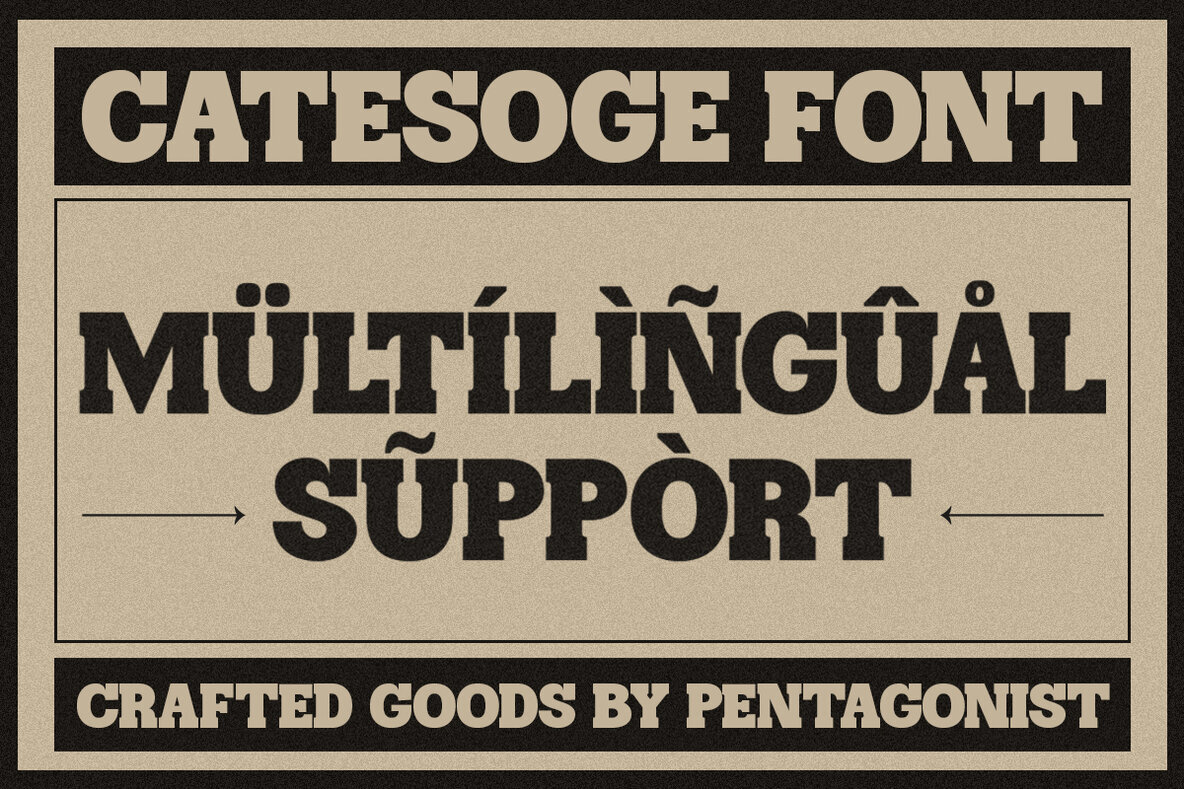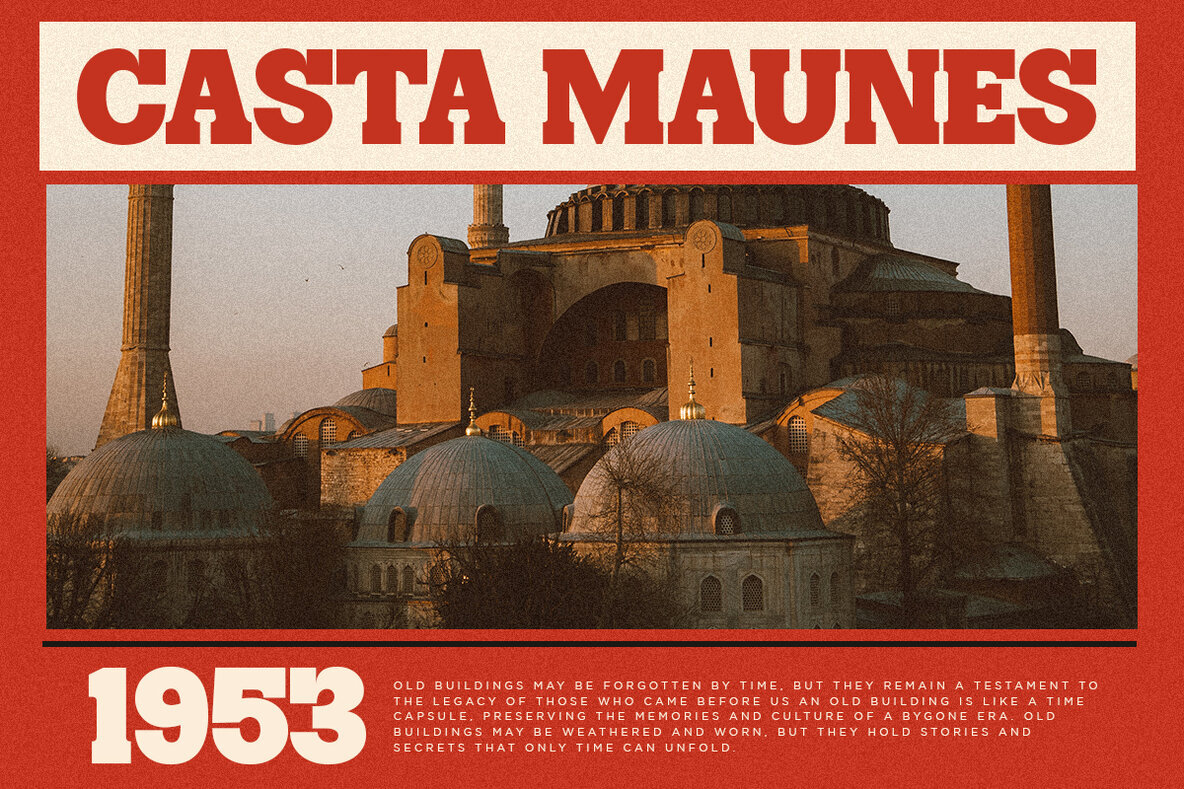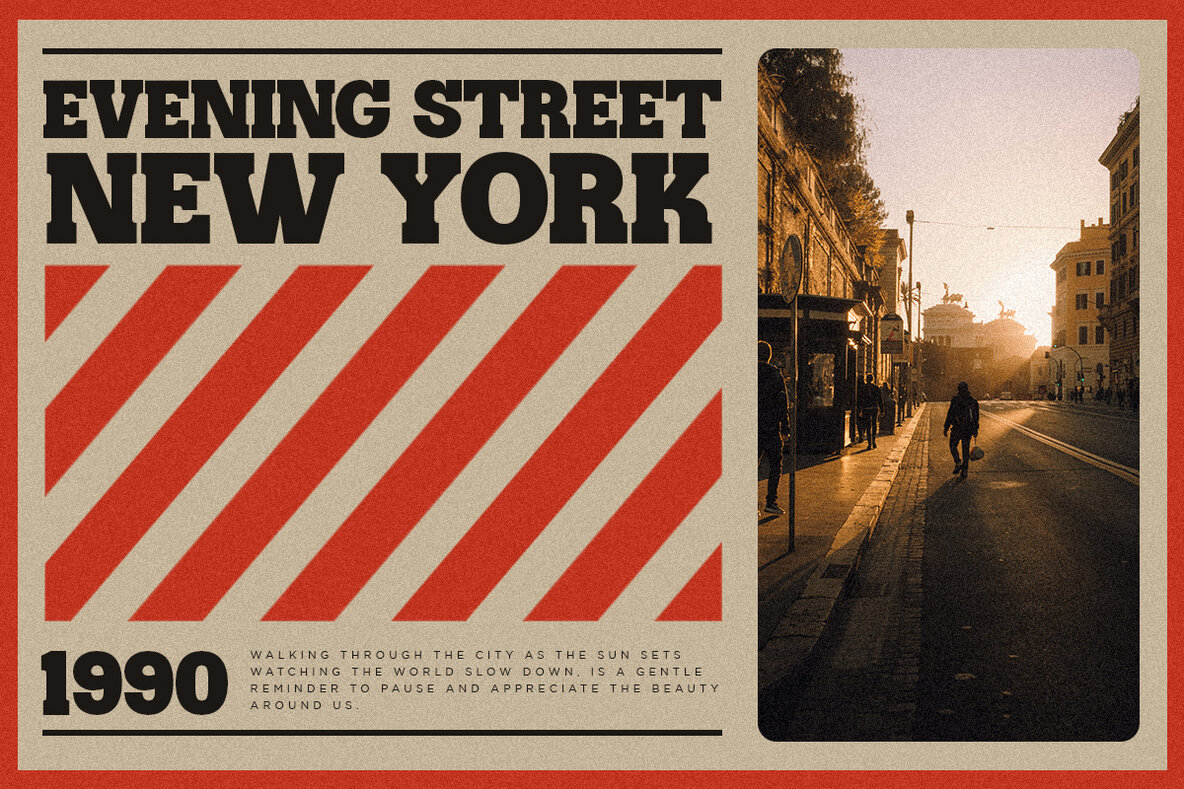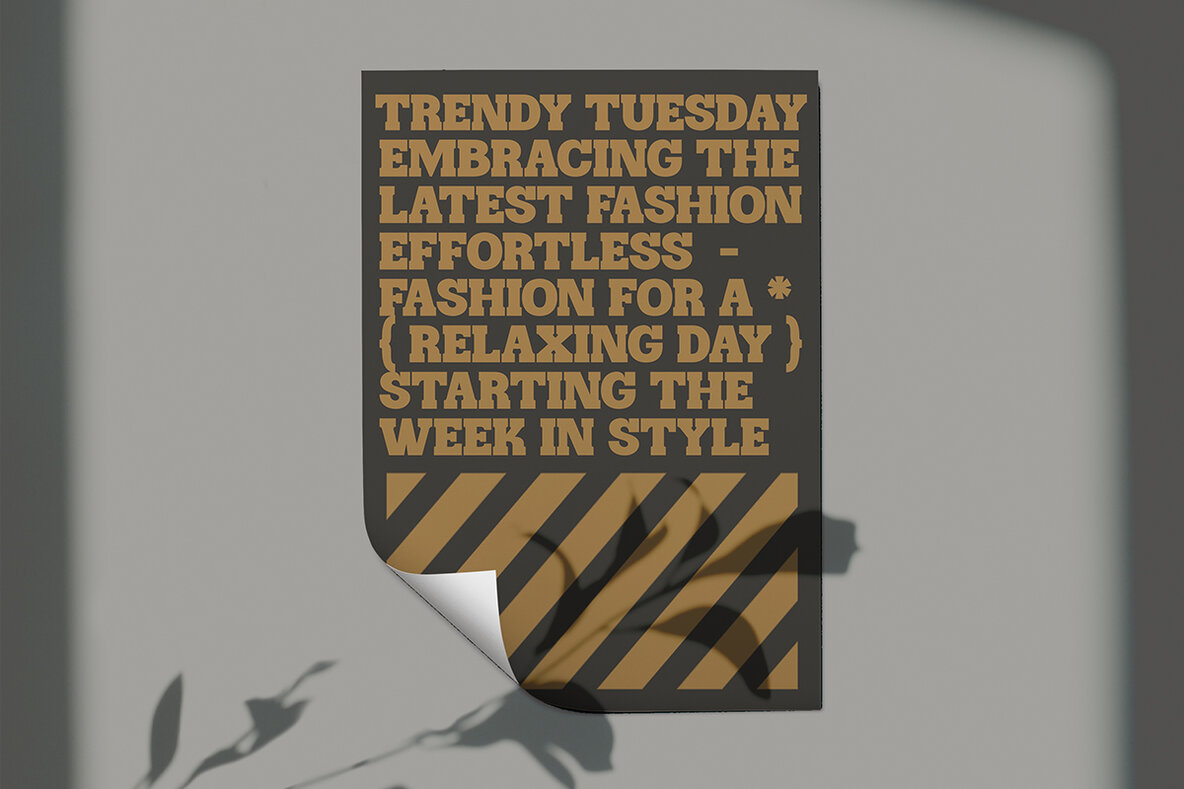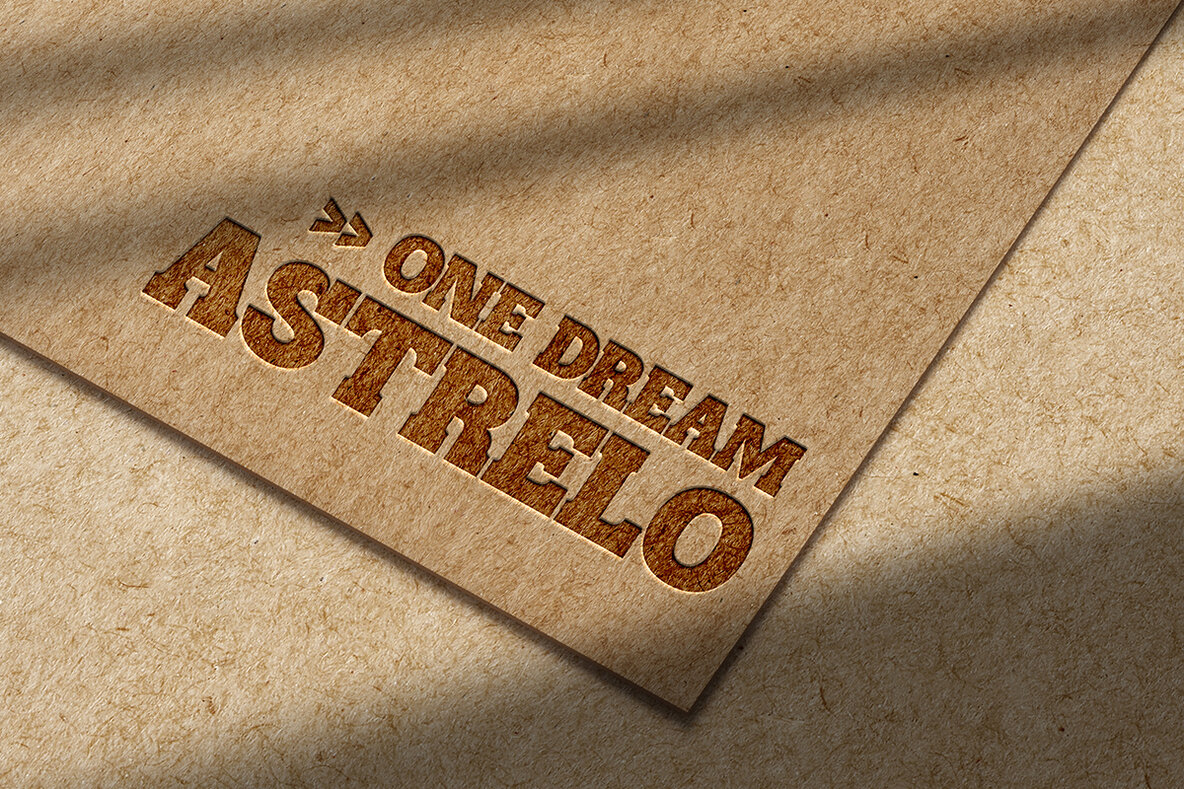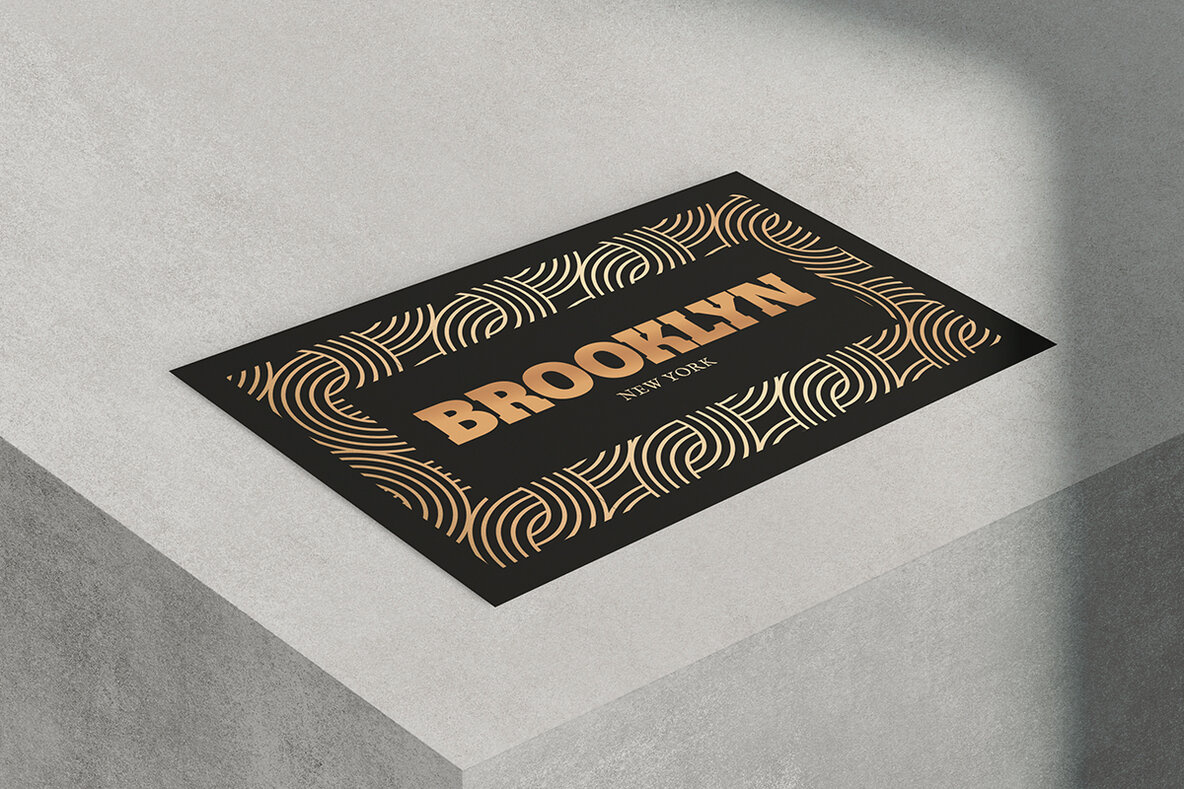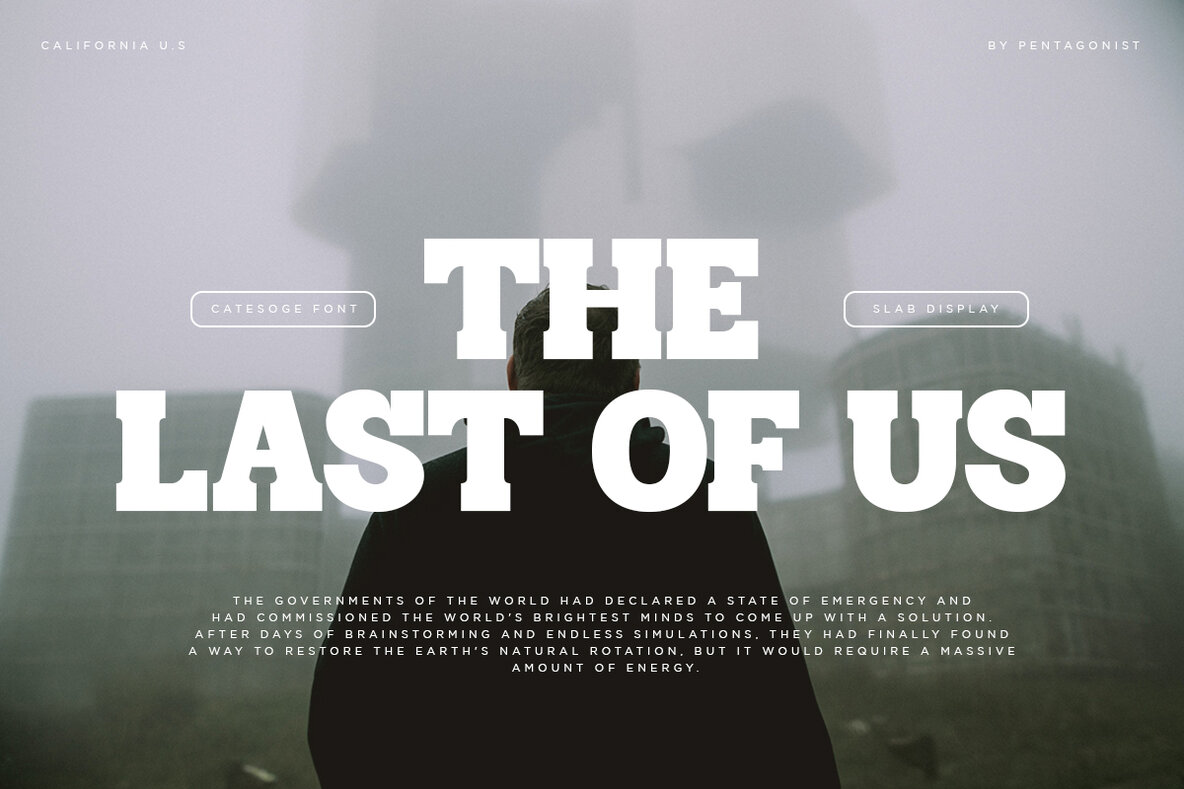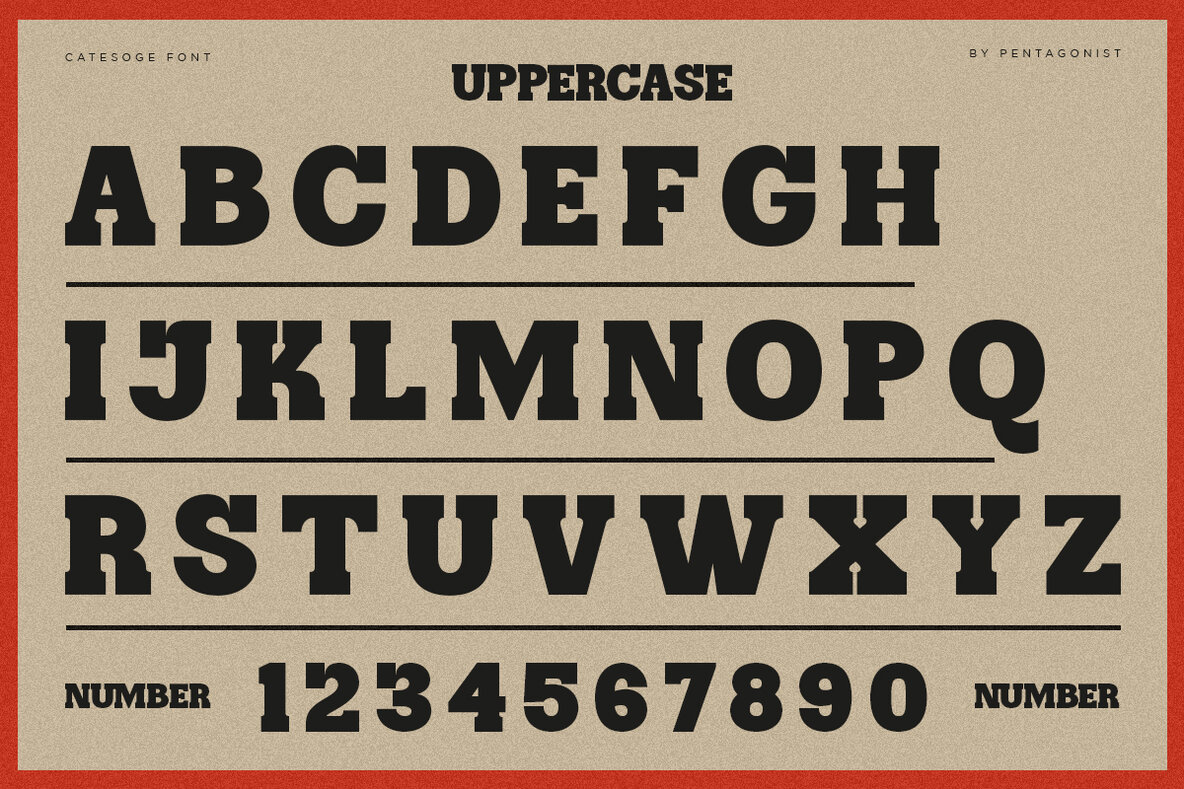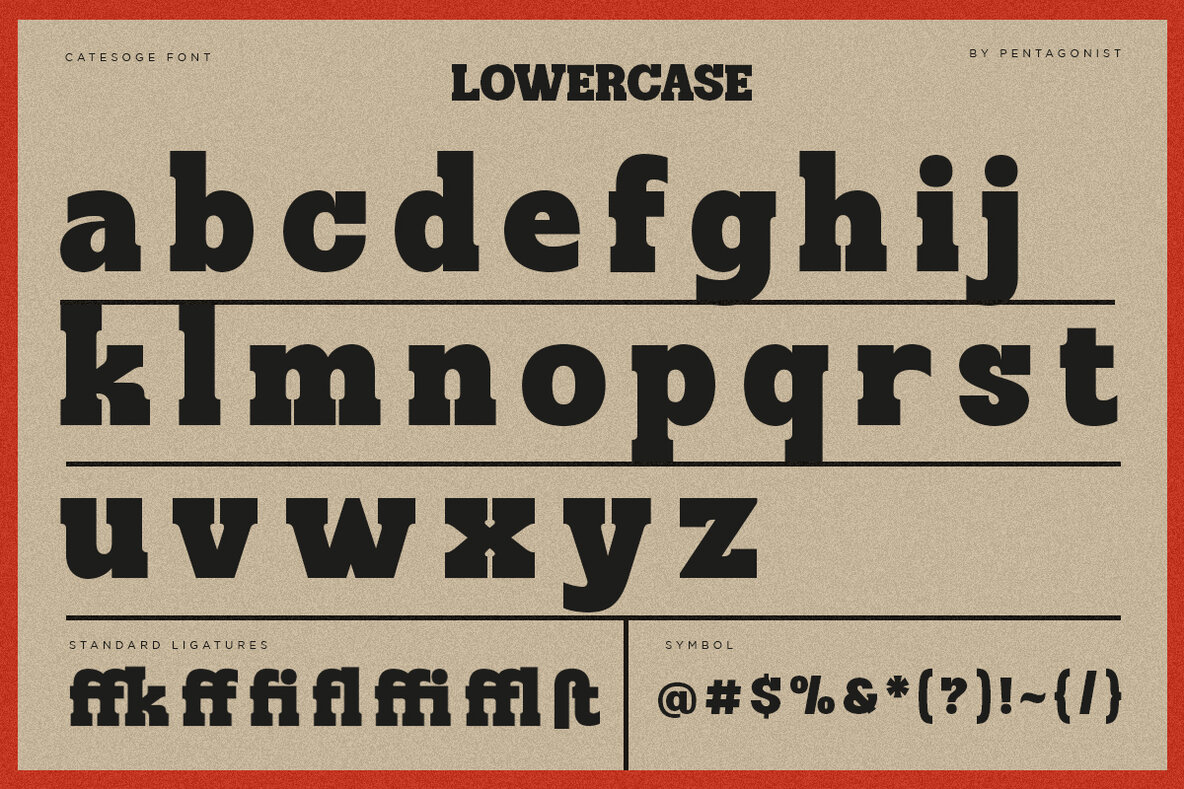
Catesoge Font
Catesoge Regular
Catesoge is a robust slab serif typeface inspired by the retro and vintage styles. Its bold character and classic lines make it a unique choice for projects that seek to evoke nostalgia while maintaining a strong visual impact. No special software is needed for using Catesoge. It is compatible with any program or app that supports standard font integration. Follow our shop for updates, additional glyphs, and language support. Feel free to reach out if you have any requests for language inclusion or specific features. Have a great day!Catesoge: Bold Slab Serif Typeface with Retro Charm